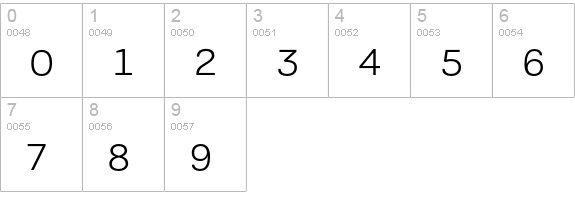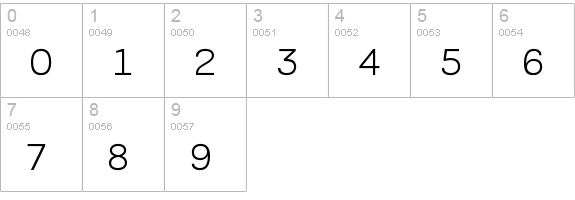
PFEncoreSansPro-Light is a refined, elegant variant in the PFEncoreSansPro typeface family \xE2\x80\x94 well suited to elegant body text, refined sub-headings, and luxury branding.
PFEncoreSansPro-Light is a sleek and modern typeface that exudes elegance and sophistication. With its clean lines and minimalist design, this font is perfect for creating a polished and professional look in various design projects. The light weight of the font adds a touch of subtlety and refinement, making it ideal for use in branding, editorial design, and more. What sets PFEncoreSansPro-Light apart is that it is available for free download at FontsMarket.com. This means that you can easily access this high-quality font without any cost, making it a valuable addition to your font library. Whether you're a designer looking to elevate your projects or a business seeking a stylish font for your branding, PFEncoreSansPro-Light is a versatile choice that won't break the bank. Download it today and enhance your designs with this elegant and free font.